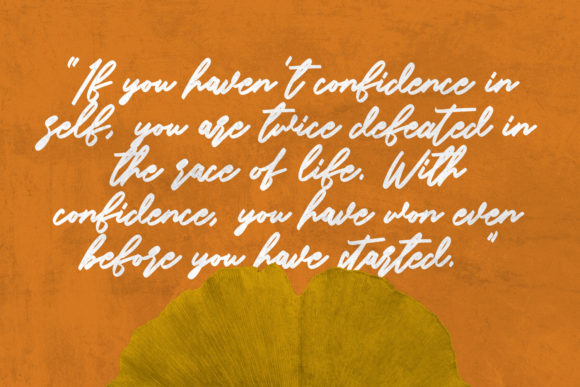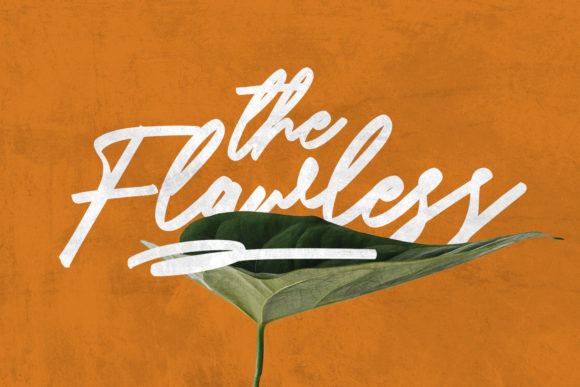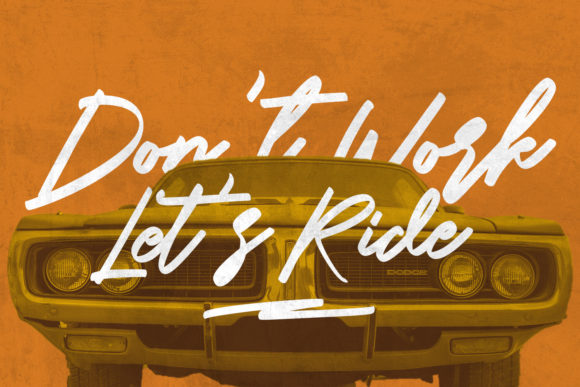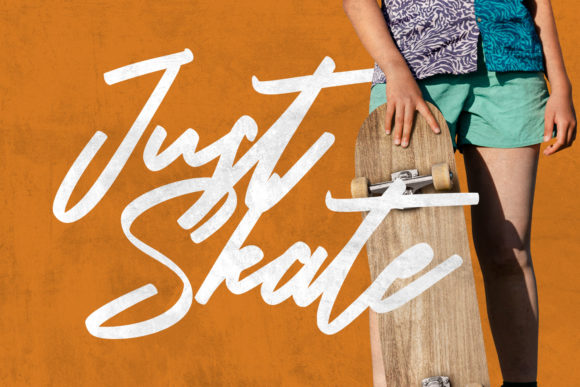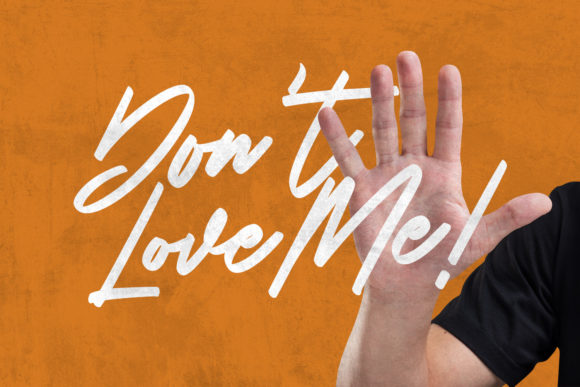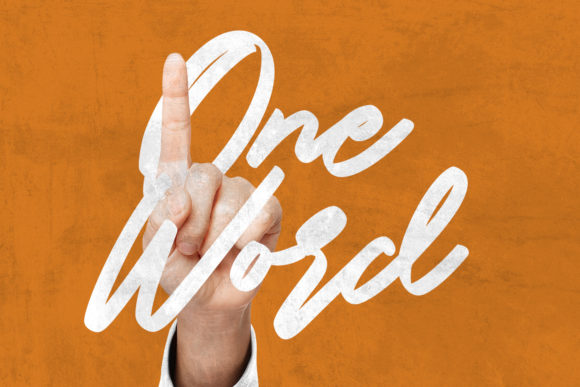
Unleash Your Creativity with Carputins Signature Font
Have you ever been in the middle of a creative project, staring at a blank screen, trying to come up with the perfect font to match your vision? We’ve all been there. It’s those moments of frustration that can spark inspiration, and for designers, finding the right font can be the key to unlocking a stunning design.
Enter Carputins Signature Font, a casual script font designed to elevate your creative projects. Perfect for logo design, social media posts, movie and book titles, and more, this font is a game-changer for designers looking to add a touch of elegance and sophistication to their work.
With Carputins Signature Font, you can take your designs to the next level and make a lasting impression on your audience. Whether you’re a seasoned designer or just starting out, this versatile font is a valuable addition to any creative toolbox.
Carputins Signature Font Key Features
- Unique Characteristics: Carputins Signature Font features a unique blend of modern and vintage elements, with intricate details and flourishes that make it stand out in any design.
Carputins Signature Font Review
Overall, I have mixed feelings about Carputins Signature Font. As a designer, I appreciate its unique charm, but it also has its drawbacks.
- The font’s signature flair is undeniable. It adds a touch of sophistication to any design.
- The bold weights are particularly striking, making them perfect for headlines.
- Carputins Signature Font supports a wide range of languages, making it a great choice for multilingual designs.
- The font’s readability is somewhat compromised in smaller sizes. This may make it less suitable for body text.
- The font’s compatibility with older systems is limited, which could lead to compatibility issues.
- The font’s lack of fine-tuning options may make it difficult to customize to certain design preferences.
While Carputins Signature Font has its strengths, its limitations hold it back from being a truly exceptional font. It’s best suited for designs where its unique flair can shine, such as in logos or branding materials.
Carputin’s Signature Font is ideal for creating unique and eye-catching titles, headings, and logos.
Use it to add a personal touch to your designs and stand out from the crowd.